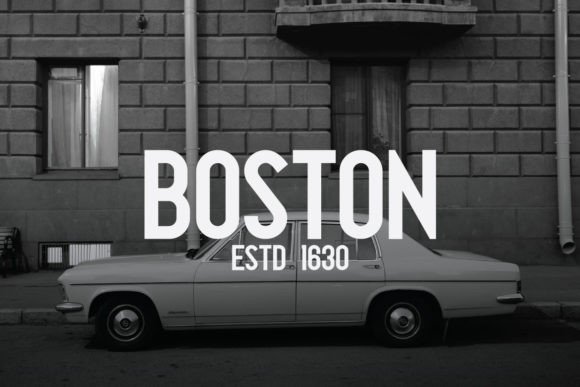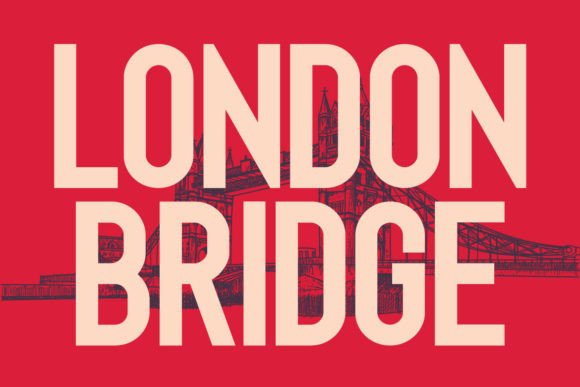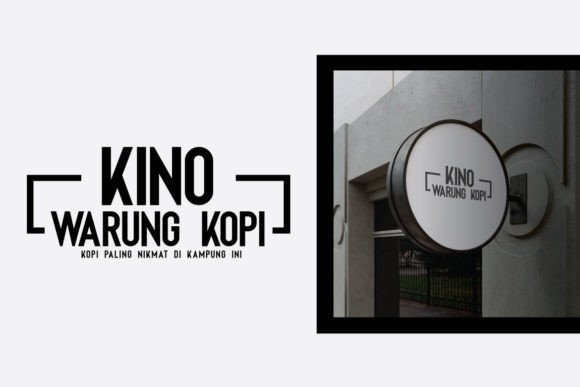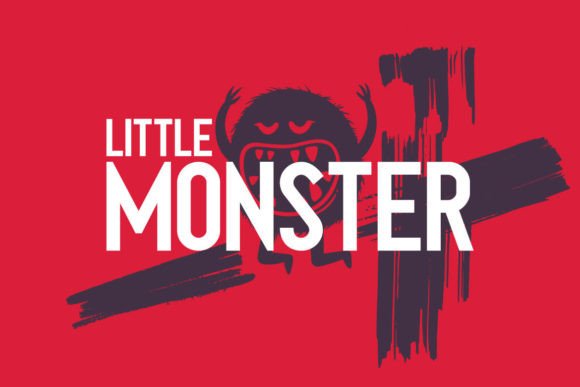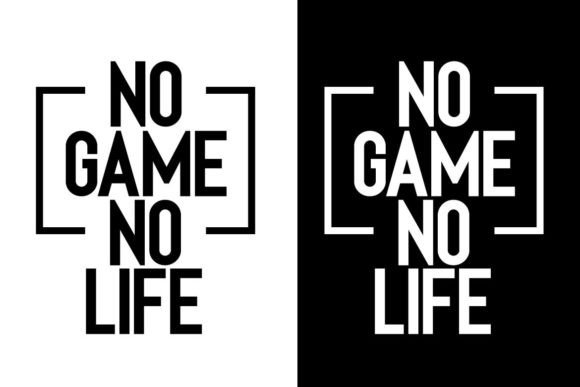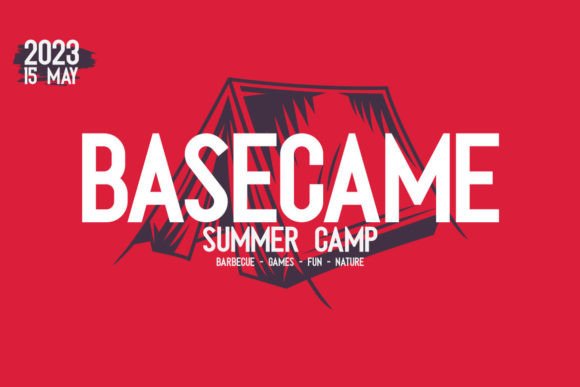
Introduction to Bosen Font
Bosen is a cool and modern display font.
It has clean and well-balanced characters and as a result, it matches a wide pool of designs Add it to your most creative ideas and notice how it makes them come alive.
Key Features of Bosen Font